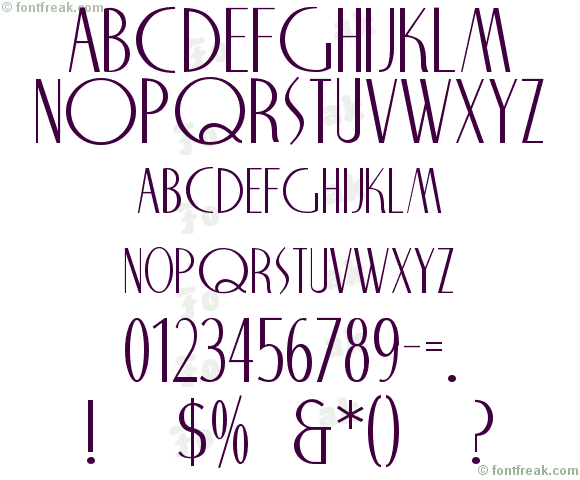
NiteClub
About NiteClub
NiteClub, designed by Thomas E. Harvey, is a striking display font that embodies a modern yet playful aesthetic, making it a fantastic choice for various creative projects. As a shareware font, it invites users to explore its unique characteristics while supporting the designer's work. The font features bold, clean lines with a moderate stroke weight, offering a balanced contrast that enhances its legibility even at larger sizes. The letterforms are well-spaced, allowing for a cohesive appearance, while subtle decorative elements add a hint of flair to its overall design.
This versatile font is ideal for a range of use cases. It shines in the realm of nightlife promotions, making it a perfect fit for nightclub flyers and event posters. Its contemporary style can also elevate restaurant menus, providing a chic and inviting look that attracts diners. Additionally, NiteClub is well-suited for fashion branding, helping to convey a stylish image that resonates with customers. Graphic designers can utilize this font in creating eye-catching social media graphics or digital content, ensuring that their work stands out in a crowded marketplace.
Targeting graphic designers, small business owners, and content creators, NiteClub offers an appealing option for those looking to infuse their projects with a sense of modern sophistication. Its unique charm and usability make it a go-to choice for anyone aiming to make a memorable impression.